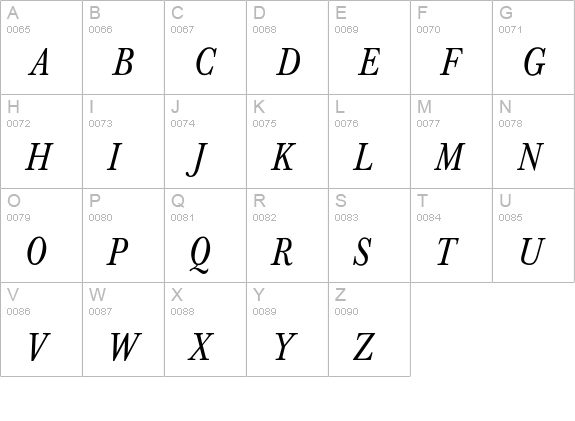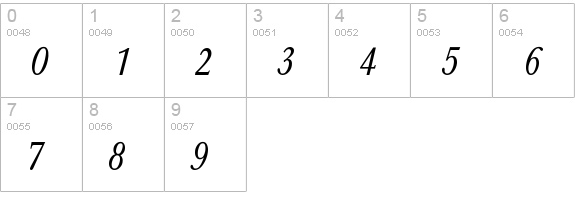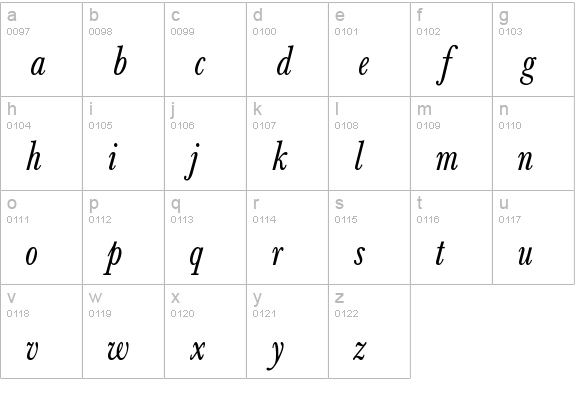
NewBaskervill 5 is a classic and elegant serif font that exudes sophistication and timelessness. With its refined lines and graceful curves, this font is perfect for adding a touch of elegance to any project. Whether you're designing a wedding invitation, crafting a logo, or creating a professional document, NewBaskervill 5 is sure to impress. The best part? NewBaskervill 5 is available for free download at FontsMarket.com. This means you can easily access this beautiful font without any cost, making it a fantastic option for designers and creatives on a budget. Don't miss out on the opportunity to enhance your projects with the beauty of NewBaskervill 5 – download it for free today at FontsMarket.com!